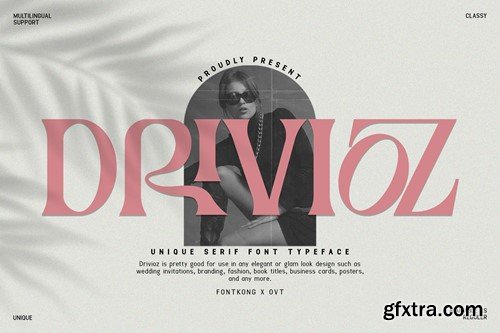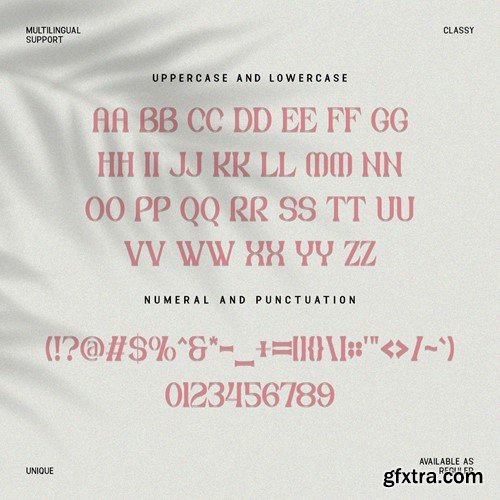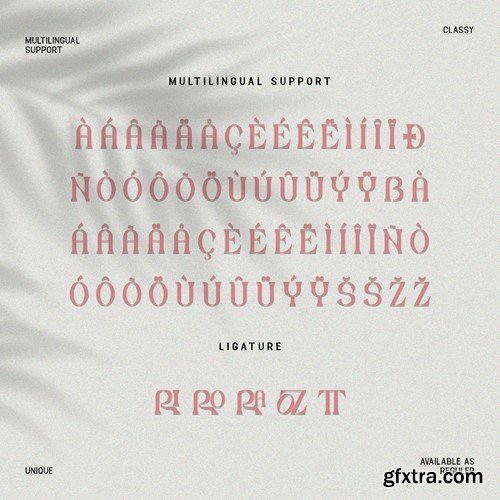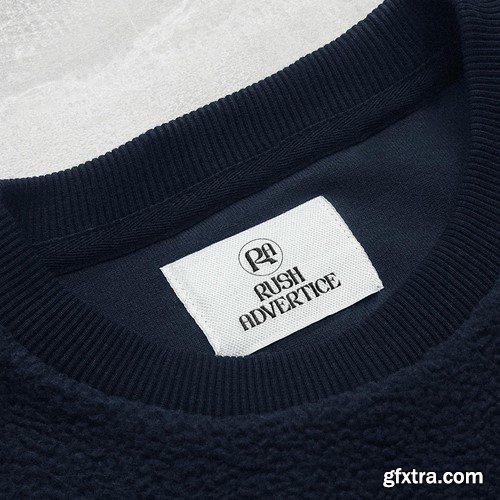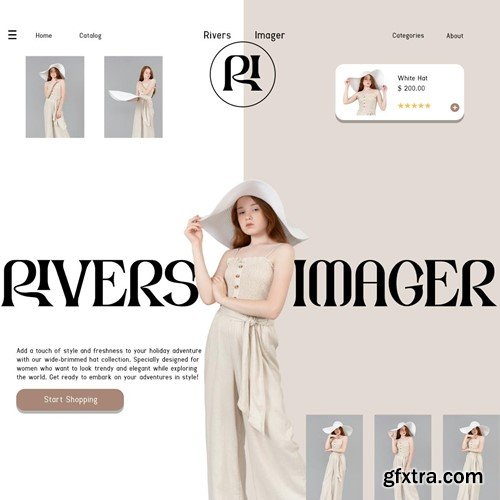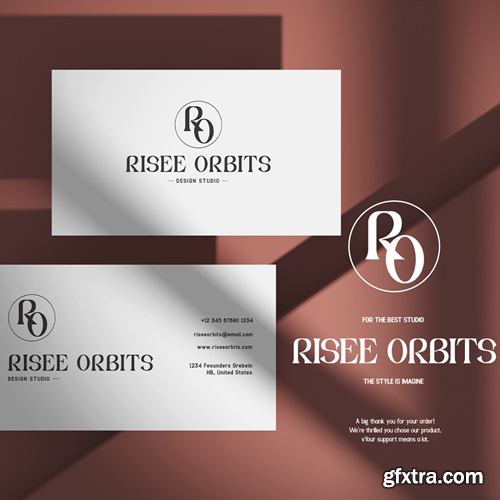
Drivioz - 独特 serif 字型字体 A6YCF53
Drivioz - Unique Serif Typeface Font Introducing "Drivioz," a unique serif typeface that stands out with its distinctive and creative design. This typeface is crafted for designers who seek to infuse their projects with personality and originality. Drivioz's quirky curves and unexpected twists make it a perfect choice for those aiming to break the mold and present something truly one-of-a-kind. You will receive the font files in TTF, OTF, and WOFF formats Drivioz is versatile enough for a wide array of applications, from captivating book covers and engaging editorial content to memorable branding and standout advertising. Its robust set of features includes multiple weights, true italics, a comprehensive suite of numerals and punctuation, and extensive multilingual support to cater to a global audience. Whether creating for print or digital, Drivioz ensures that your work not only attracts attention but also retains it, thanks to its unique flair and excellent readability. It's an ideal typeface for projects that require a touch of creativity and sophistication, helping your text to speak volumes without saying a word. Drivioz is the go-to typeface for adding uniqueness and charm to your typographic repertoire.